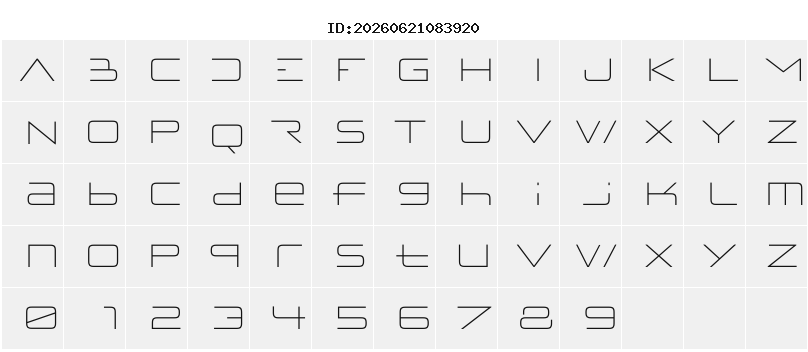
Melete UltraLight Preview
• Font Name: Melete UltraLight
• Full Font Name: Melete UltraLight
• PostScript Name: Melete-UltraLight
• Designer: Sora Sagano
• Manufacturer: DOT COLON
About Melete UltraLight.otf
Melete UltraLight.otf is a modern, elegant sans-serif font designed for ultimate readability and visual harmony. Perfect for branding, headlines, web design, and print materials.